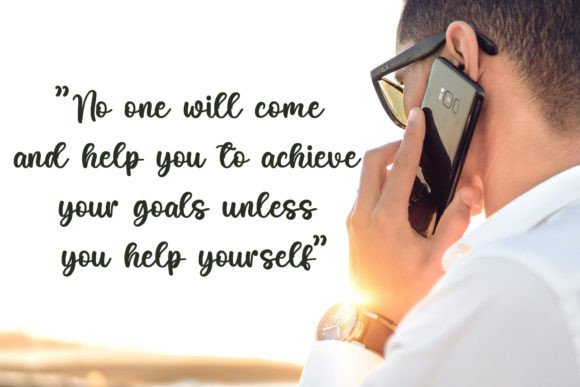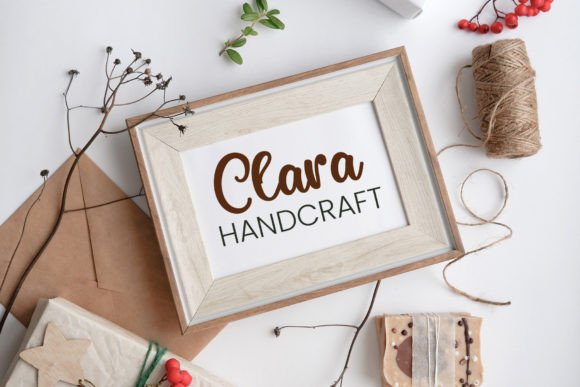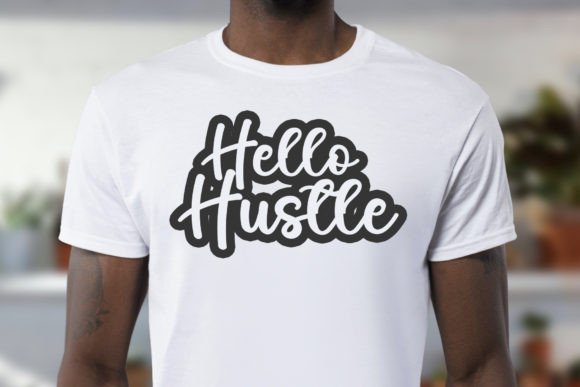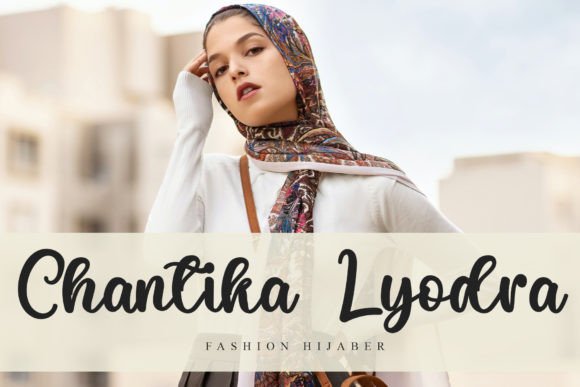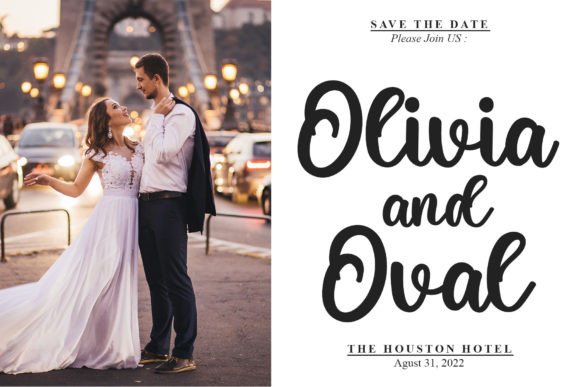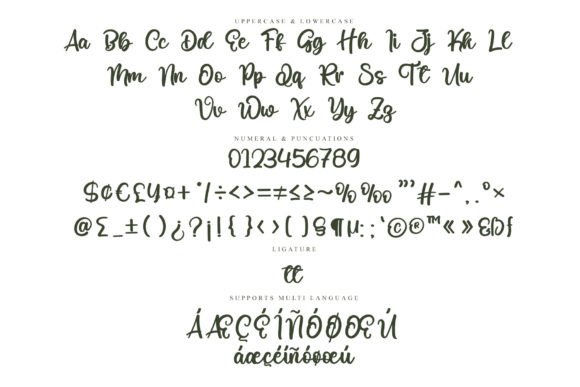
Introducing Hastag Font: The Sweet and Cursive Handwritten Font for Your Design Needs
Are you a designer or crafter looking for a font that can add a touch of sweetness and romance to your projects? Look no further than Hastag Font! This beautiful, cursive handwritten font is perfect for a variety of design ideas and is sure to bring a joyful and romantic feel to each of your creations.
What is Hastag Font?
Hastag Font is a unique and elegant font that is inspired by the beauty of handwritten script. Its gentle curves and flowing lines make it perfect for adding a personal touch to your designs. Whether you’re creating invitations, greeting cards, or social media graphics, Hastag Font is sure to make your projects stand out.
Features of Hastag Font
Hastag Font has a number of features that make it a great choice for designers and crafters. Some of its key features include:
- Sweet and Cursive Design: Hastag Font has a beautiful, cursive design that is sure to add a touch of sweetness to your projects.
- Handwritten Style: The font has a handwritten style that gives it a personal and unique feel.
- Easy to Read: Despite its cursive design, Hastag Font is easy to read and understand, making it perfect for use in a variety of projects.
- Versatile: Hastag Font can be used in a variety of design ideas, from invitations and greeting cards to social media graphics and more.
Uses for Hastag Font
Hastag Font is a versatile font that can be used in a variety of design projects. Some of the most popular uses for the font include:
- Invitations: Hastag Font is perfect for creating beautiful and elegant invitations for weddings, birthday parties, and other special occasions.
- Greeting Cards: The font is also great for creating greeting cards for holidays and special occasions.
- Social Media Graphics: Hastag Font can be used to create eye-catching social media graphics that are sure to grab the attention of your followers.
- Branding: The font can also be used for branding purposes, such as creating logos and business cards.
Tips for Using Hastag Font
Here are a few tips for using Hastag Font in your design projects:
- Use it with a Simple Background: Hastag Font looks best with a simple background that won’t compete with the font.
- Experiment with Colors: The font looks great in a variety of colors, so don’t be afraid to experiment and find the perfect color for your project.
- Pair it with Other Fonts: Hastag Font can be paired with other fonts to create a unique and interesting design.
In conclusion, Hastag Font is a beautiful and versatile font that is perfect for designers and crafters looking to add a touch of sweetness and romance to their projects. Its gentle curves and flowing lines make it perfect for a variety of design ideas, and its easy-to-read design makes it perfect for use in a variety of projects. Whether you’re creating invitations, greeting cards, or social media graphics, Hastag Font is sure to make your projects stand out.